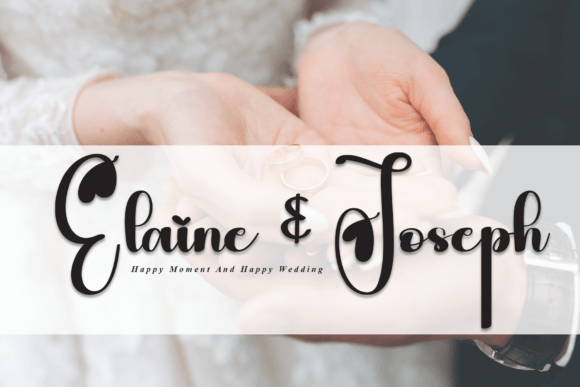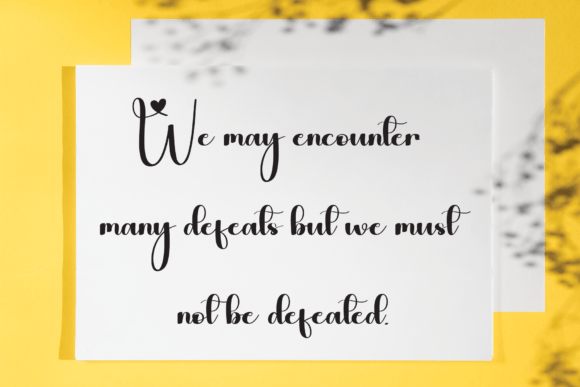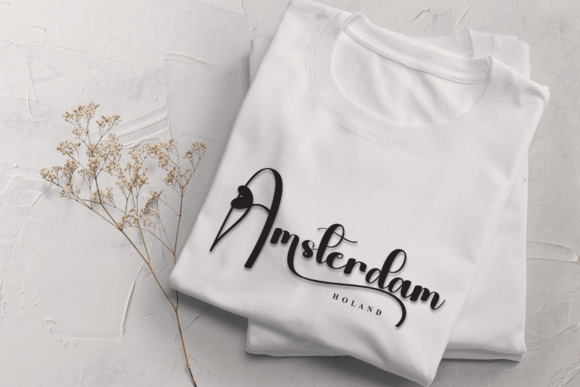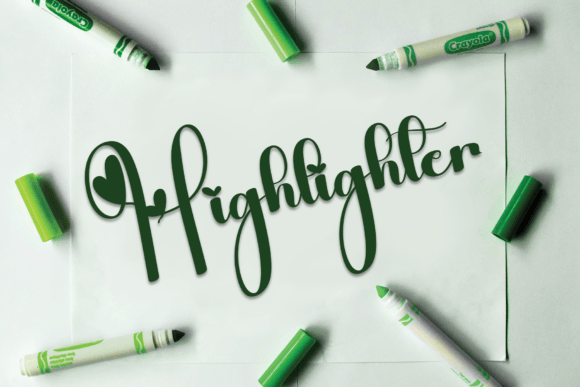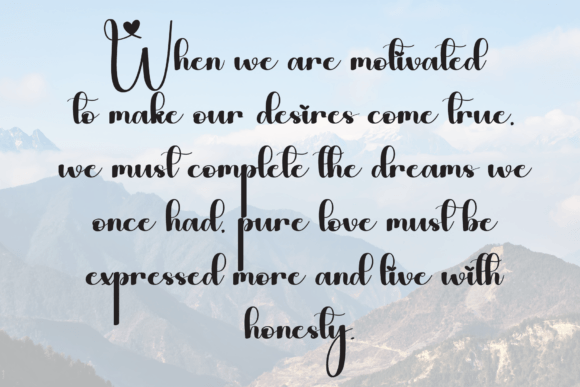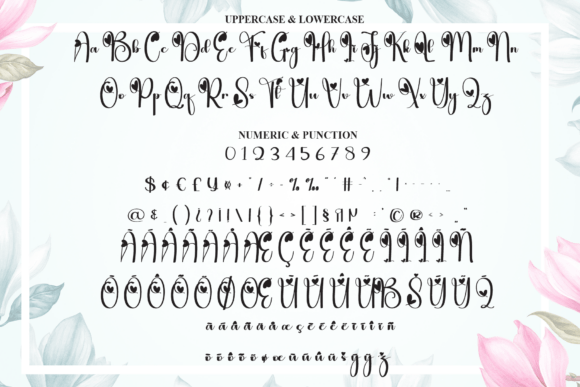
Introduction to Houndtade Font
Have you ever stared at a blank page, trying to convey the perfect message to a loved one, but struggling to find the right words? That’s where the magic of typography comes in. A well-chosen font can elevate your creative project from ordinary to extraordinary. And, we’re excited to introduce you to one of our newest design resources – the delightful Houndtade Font.
This charming, handwritten display font is designed to bring a dash of sweetness and friendliness to your work. With its bundles of cuteness and explosive fun, it’s perfect for adding a playful yet refined touch to wedding invitations, heartfelt cards, or any other design project that needs a little extra love.
Key Features of Houndtade Font
- Unique and creative design for various projects, making it a valuable design resource.
- High-quality design with crisp and clear details, ideal for use in digital and print materials.
- Comes in a single font size, but can be easily scaled up or down to suit various design needs.
- Designed with a high resolution, ensuring that the font remains clear and legible at any size.
- Perfect for designers and artists looking for a unique and creative font to enhance their projects.
Honest Review: Houndtade Font
As a designer, I’m always on the lookout for high-quality design resources to elevate my creative projects. Recently, I had the chance to try out the Houndtade Font, and I’m excited to share my honest review.
- ✨ Unique and creative design style that’s perfect for adding a touch of whimsy to my projects.
- ✨ High-quality glyphs that are crisp and clear, even when used on a transparent background.
- ⚠️ Limited character set, which might not be suitable for projects that require a wide range of characters.
- ⚠️ Not all glyphs are optimized for small font sizes, which can result in a slightly blurry appearance.
Overall, I’m impressed with the Houndtade Font’s unique design style and high-quality glyphs. While it has some limitations, I believe it’s a great resource for designers looking to add a touch of creativity to their projects. If you’re willing to work within its limitations, I’d definitely recommend giving it a try.
The Houndtade Font is ideal for use in a variety of creative projects, including branding, marketing materials, and digital art. Its high-quality design and transparent background make it a versatile resource for designers and artists.